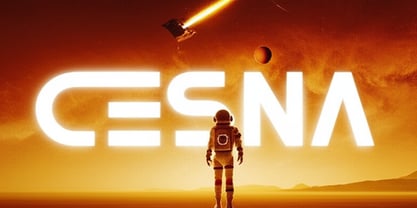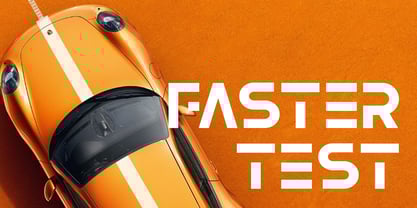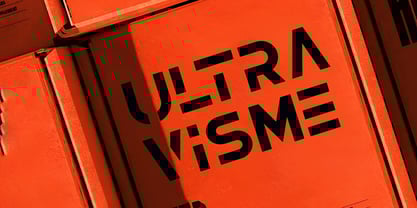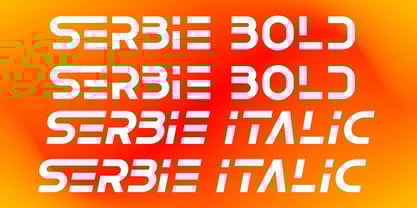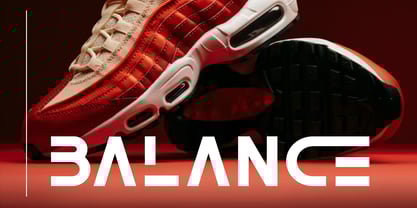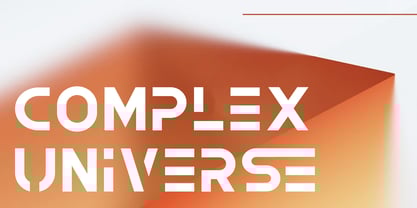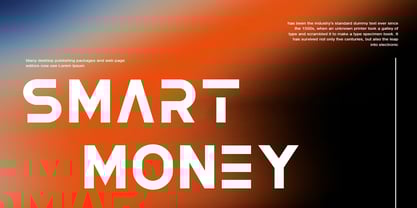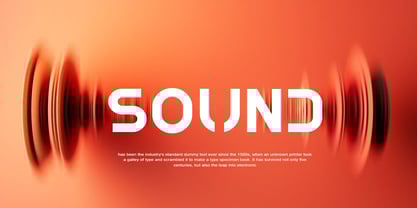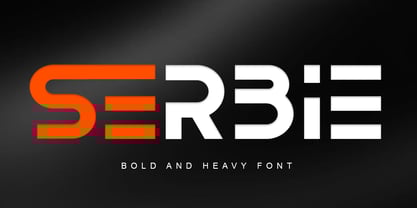
Serbie
von Vultype Co
Die Schriftfamilie Serbie wurde von Candra Hamdani entworfen und von Vultype Co veröffentlicht. Serbie enthält 2 Stile und Familienpaketoptionen. Mehr über diese Familie
Ignite your projects with SERBIE, a commanding sans serif typeface designed to make a powerful impact.
Crafted with a confident geometric foundation, SERBIE exudes a sleek, contemporary aesthetic that instantly elevates any design. Its robust letterforms and clean lines ensure maximum readability at various sizes, making it an indispensable tool for designers seeking both style and functionality.
SERBIE stands out with its meticulously balanced proportions and subtle yet distinctive curves that add a touch of sophistication to its otherwise industrial appeal. We envisioned SERBIE as the go-to font for brands that demand attention and convey strength, precision, and forward-thinking vision.
Unleash Your Creativity with SERBIE:
This versatile typeface is perfect for a multitude of design applications, including:
• Bold Headlines & Titles: Command attention on posters, editorial layouts, and digital banners.
• Striking Logos & Branding: Forge memorable brand identities for automotive, sports, tech, and industrial companies.
• Dynamic Packaging: Give products a modern edge that jumps off the shelf.
• Cutting-Edge Digital Interfaces: Enhance user experience in web design, mobile apps, and gaming interfaces.
• Athletic & Lifestyle Apparel: Create impactful designs for sportswear and urban fashion.
SERBIE's strong character set offers extensive language support, ensuring your message resonates globally. Its robust construction makes it ideal for both large display settings and shorter blocks of text, providing a cohesive and polished look across all your materials.
Pair SERBIE with a contrasting thin serif for a sophisticated balance, or combine it with a more organic script font to create a dynamic visual hierarchy. For a cohesive sans-serif pairing, consider a humanist sans serif to complement SERBIE's geometric precision.
Discover the bold versatility of SERBIE and empower your designs with a font that truly stands out.
Designer: Candra Hamdani
Foundry: Vultype Co